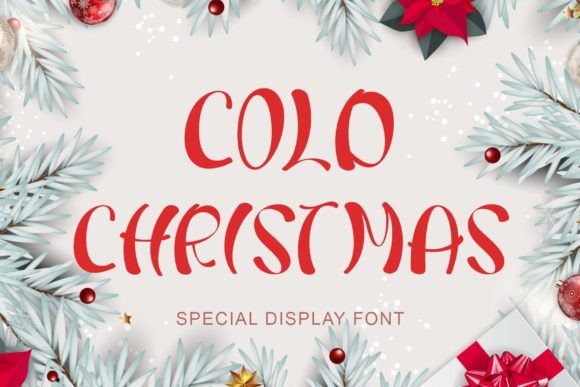
Introducing Cold Christmas Font, the playful and spirited display font that's sure to add a touch of mirth and magic to your creative ventures. Inspired by the joyfulness of the holiday season, Cold Christmas exudes a warm and inviting charm, perfect for adding a dash of cheer to your designs.
Crafted with meticulous attention to detail, Cold Christmas boasts a captivating personality that's both playful and sophisticated. Its whimsical strokes and quirky letterforms dance across the page, creating a visual symphony that's sure to capture your heart. Whether you're creating eye-catching logos, cheerful greeting cards, or whimsical social media graphics, Cold Christmas is the perfect font to spread joy and ignite creativity.
With its versatility, Cold Christmas is a font that's bound to become your go-to choice for a wide range of projects. Its charming nature makes it ideal for creating cheerful posters, enchanting invitations, and heartwarming website designs. Its playful spirit shines through in children's books, toys, and games, while its sophisticated side lends itself beautifully to wedding stationery, fashion branding, and lifestyle blogs.
But what truly sets Cold Christmas apart is its ability to evoke emotions. Its jolly nature uplifts spirits, while its friendly demeanor creates a welcoming atmosphere. Whether you're aiming to spread holiday cheer, create whimsical designs, or simply add a touch of playful charm to your projects, Cold Christmas is the font that knows how to touch hearts and make a lasting impression.
So, dive into the world of Cold Christmas Font and let its infectious joy and boundless creativity inspire your next project. It's the perfect font for those who dare to embrace the magic of the season and bring a smile to the faces of your audience.